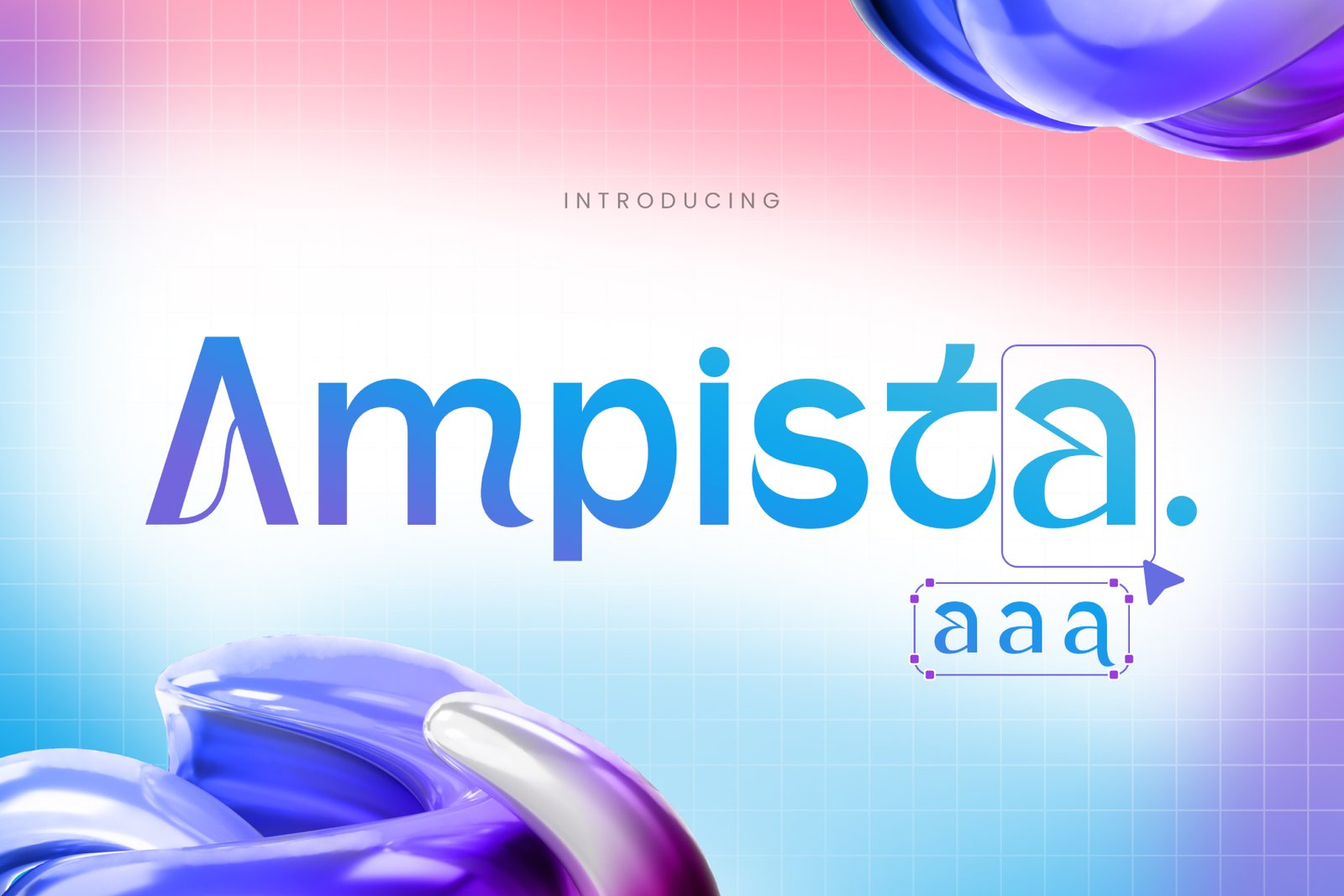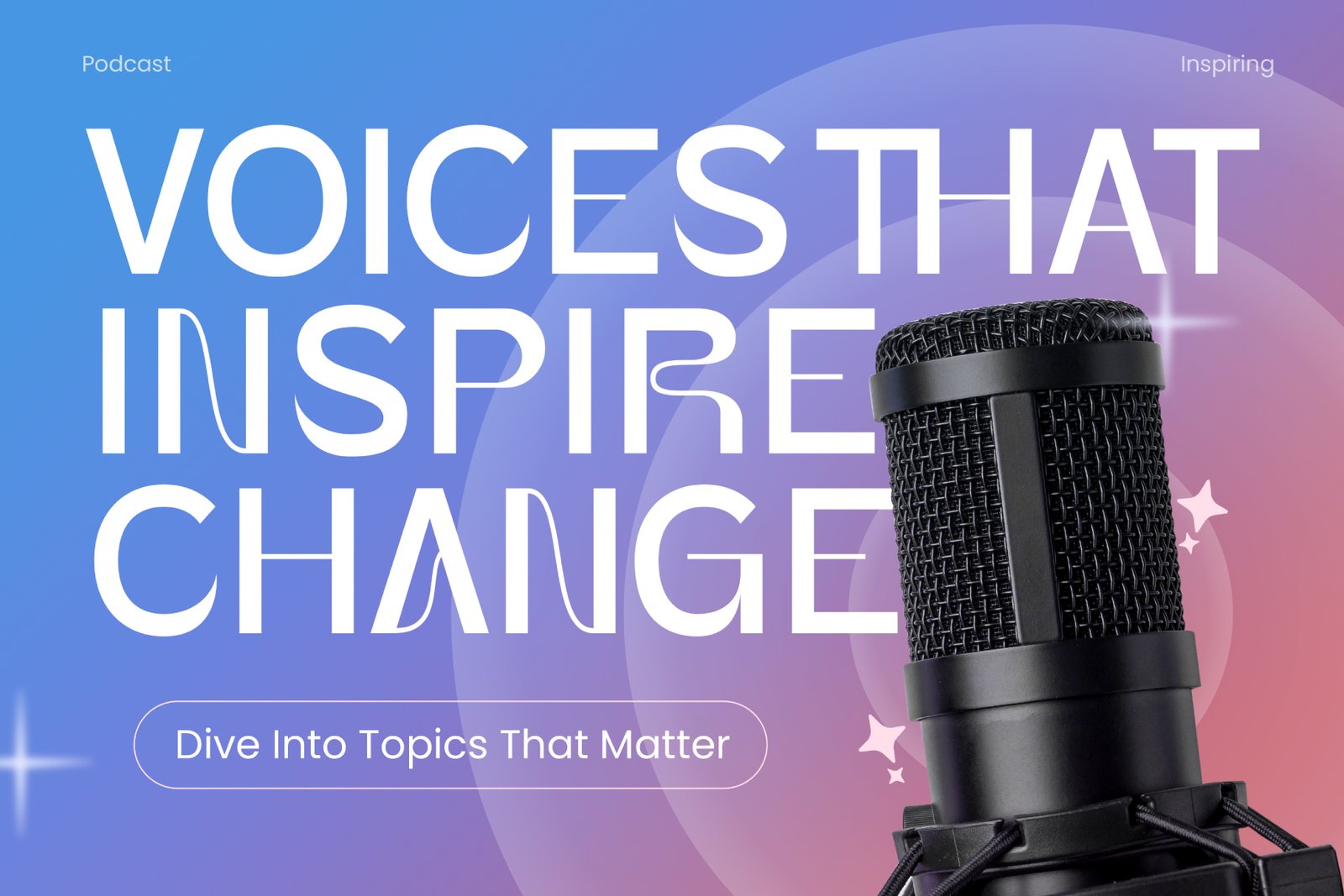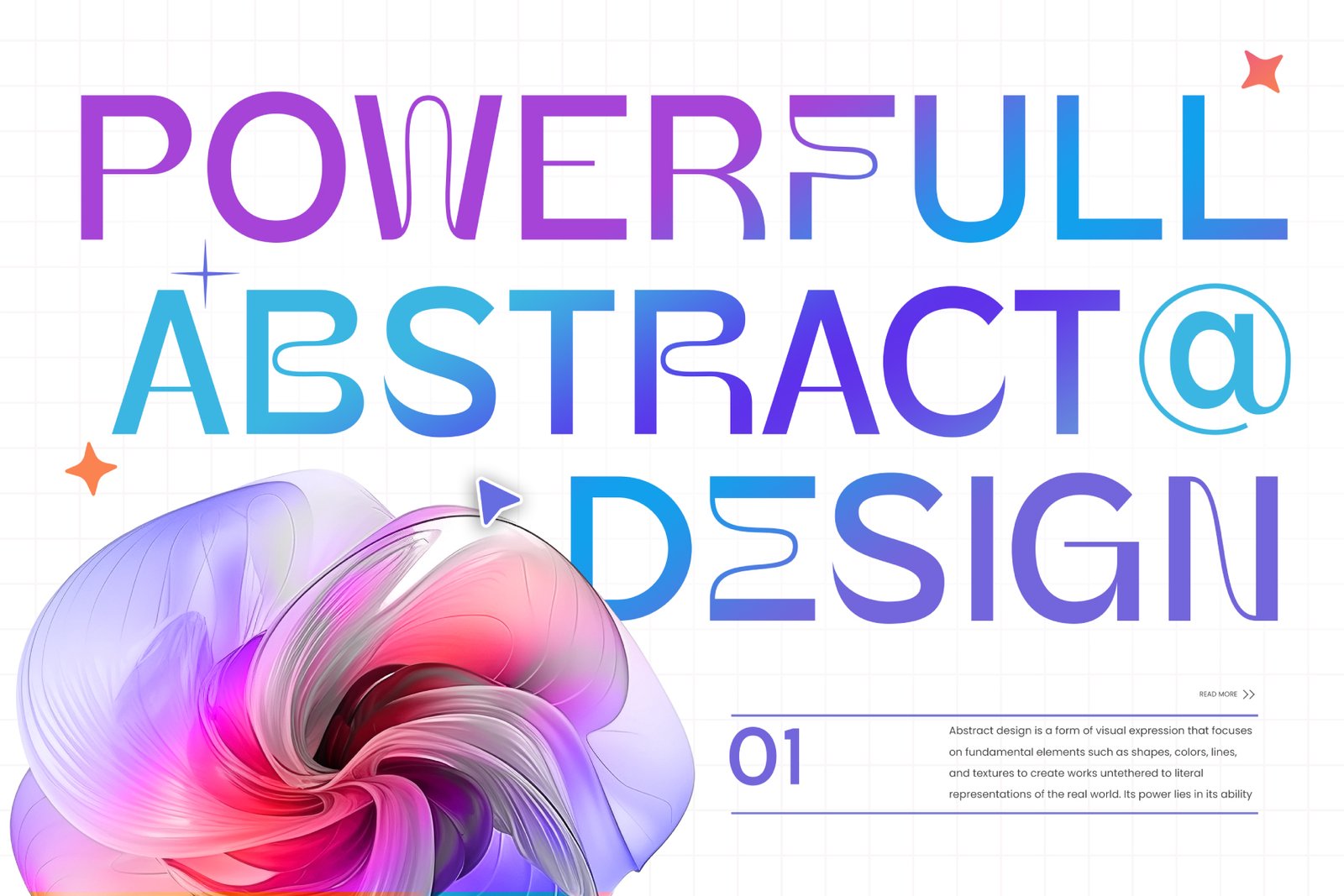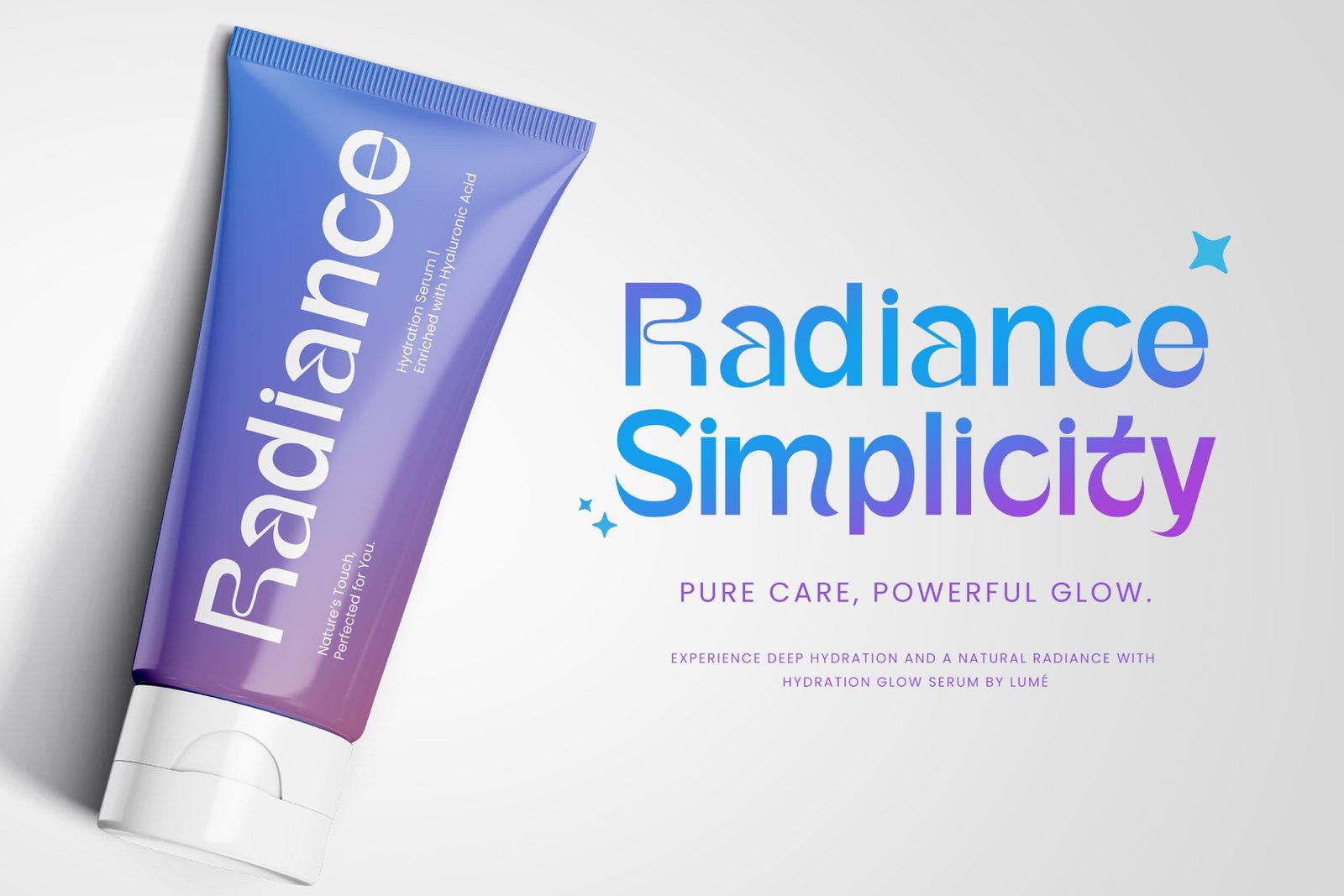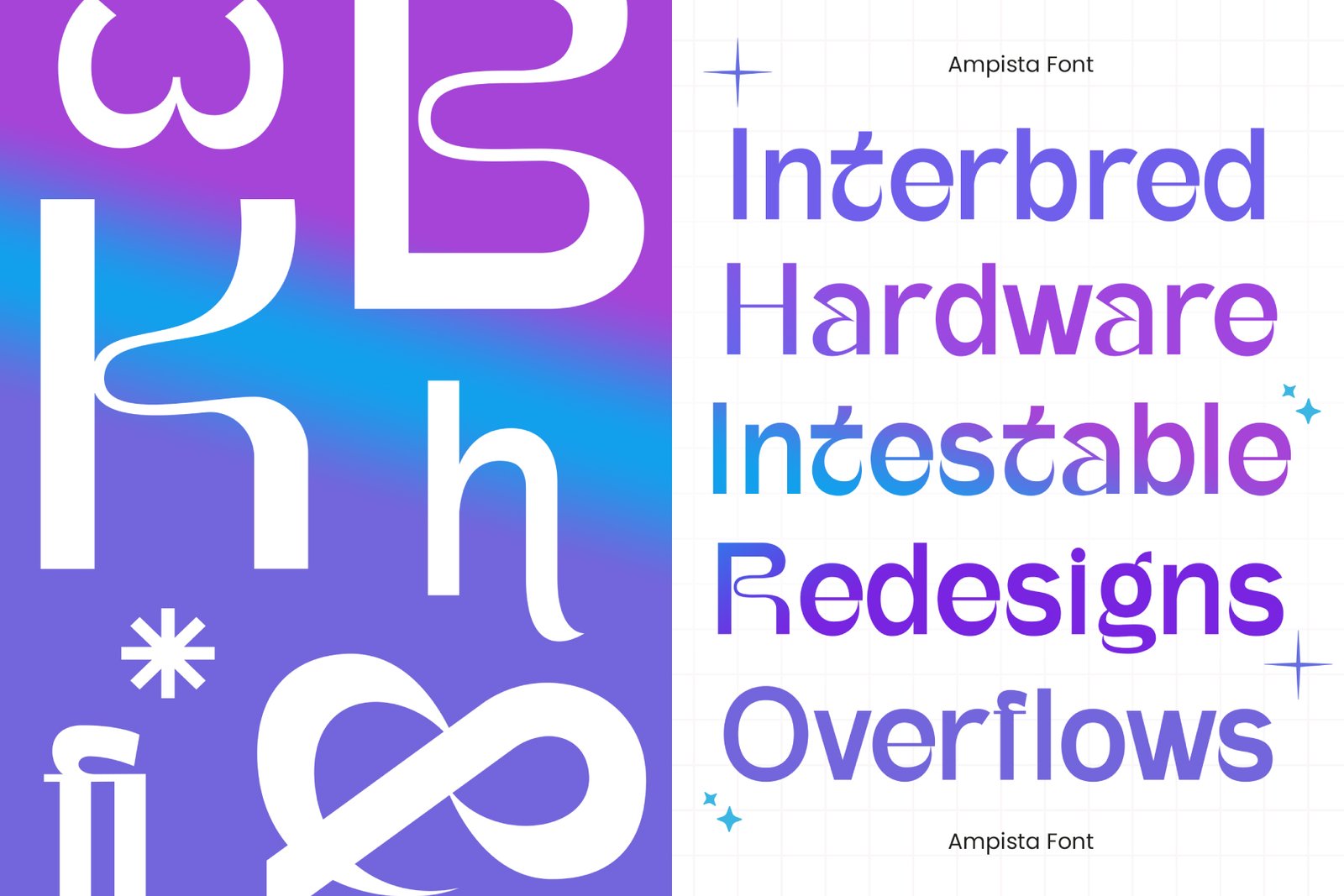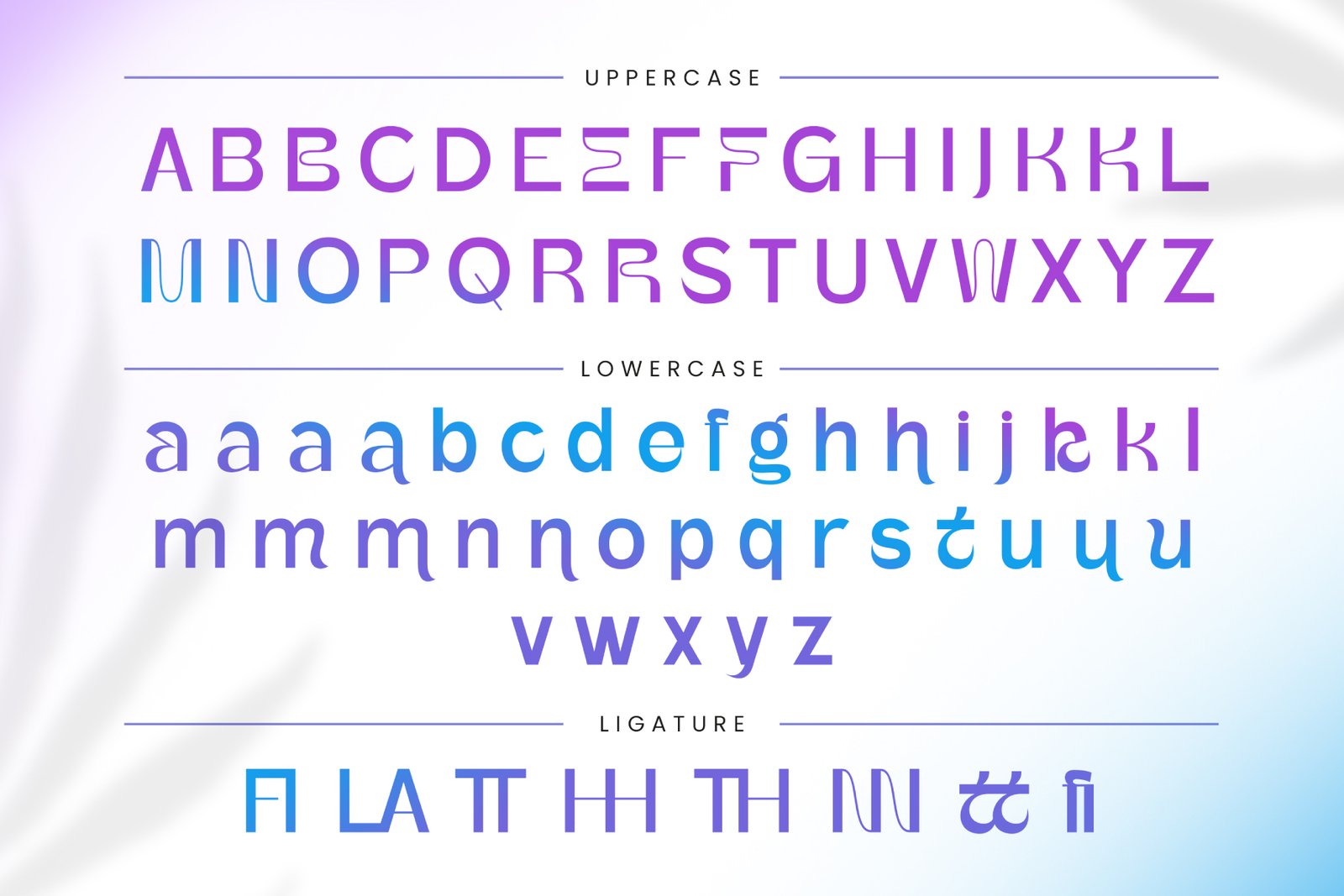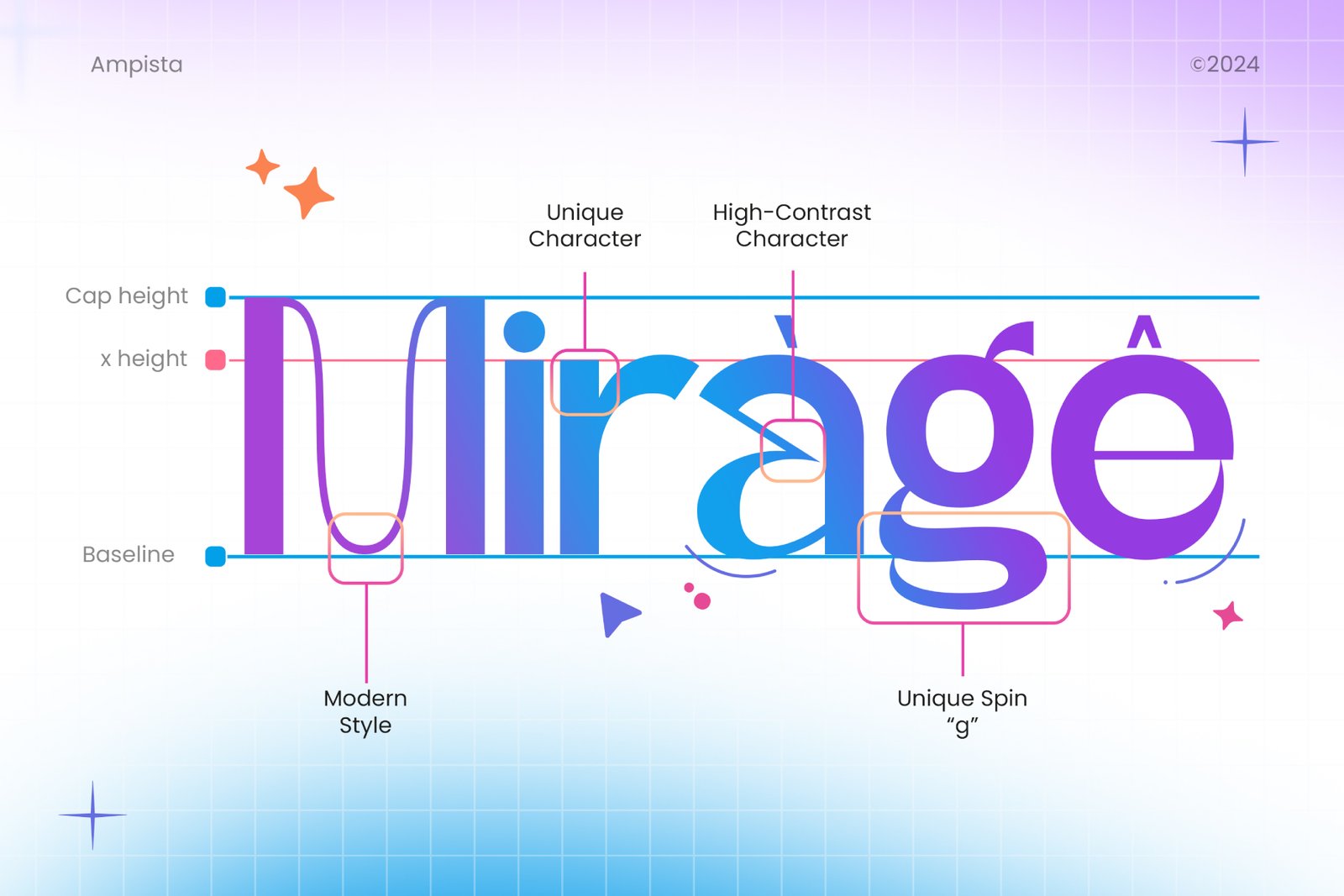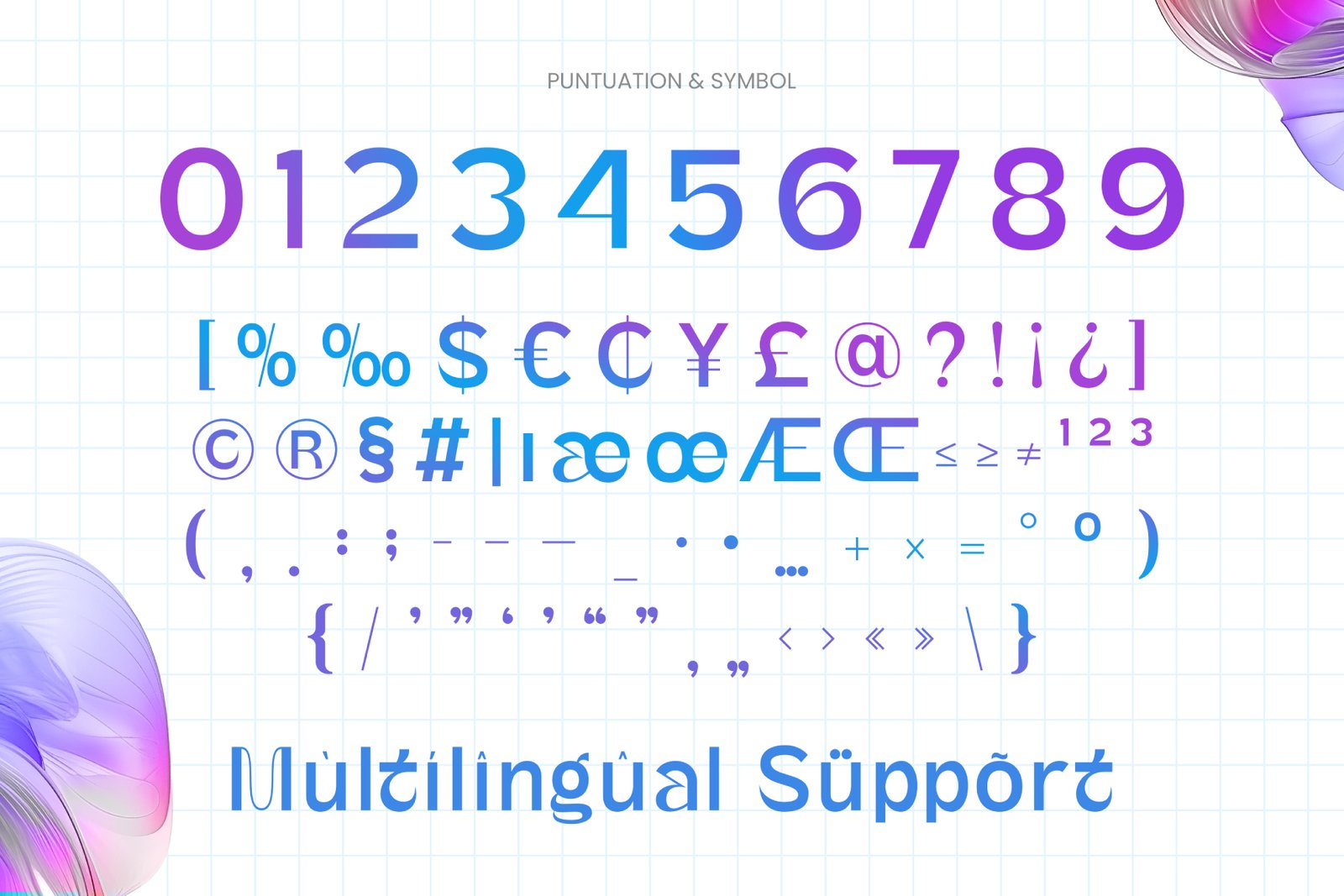
- Ampista – Stylish Modern Font
Ampista
Ampista is a modern, stylish font perfect for logo branding. With its sleek design and luxurious alternates, it adds an elegant touch to premium brands in fashion, beauty, and lifestyle. Its clean lines and refined curves make it versatile for logos, websites, and promotional materials.
Ampista includes:
– Uppercase and lowercase letters
– Symbols and punctuation
– Alternates
– Ligatures
– Multilingual support